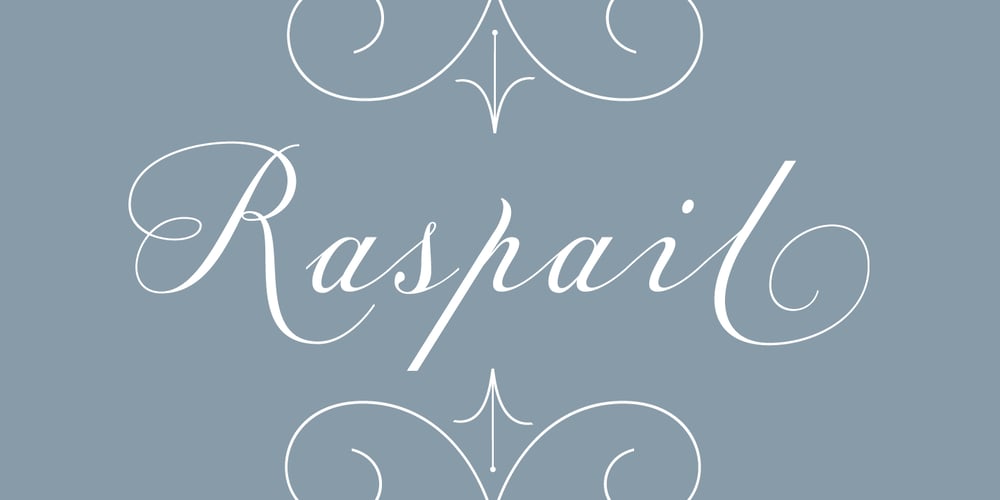
Raspail Font Family was designed by Carine de Wandeleer and published by Eurotypo. Raspail contains 1 styles and family package options. Raspail is a contemporary calligraphic font inspired by copperplate. Raspail has a great inclination with extensions of ascending and descenders strokes, widely ornate, and a special emphasis on the connection of the letters. It includes more than 350 alternates, 50 ligatures and a great set of ornaments.